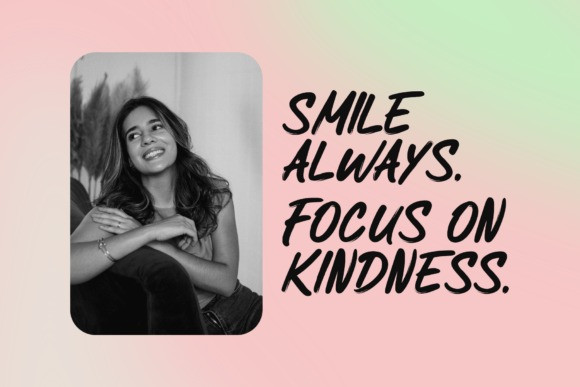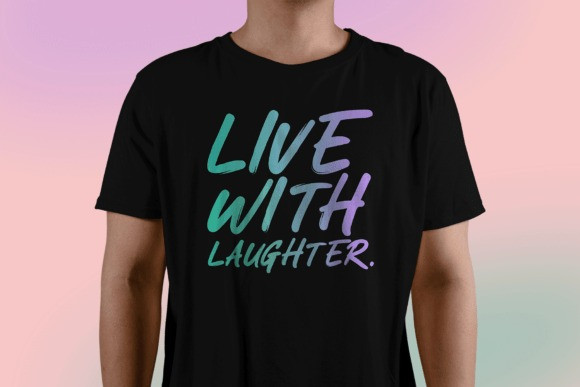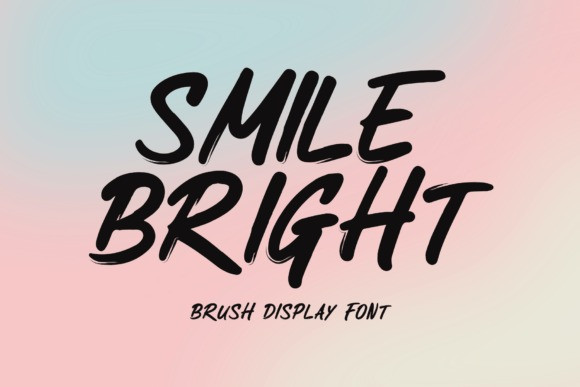
Smile Bright Font
Smile Bright Font is a bold brush display font that brings hand-painted energy to titles and logos. This modern brush typeface features thick, textured strokes, natural pressure contrast, and a confident slant that reads fast and loud. Open counters, a generous x-height, and tight spacing make the lettering pop on posters, social media, and thumbnails, while the dry-brush texture adds authentic, hand-lettered grit. Use the font big for headlines, quotes, streetwear branding, packaging, flyers, and YouTube intros, or pair it with a clean sans for sharp contrast. If you’re searching for a high-impact brush font with expressive motion and instant attitude, Smile Bright is the display typeface that turns simple words into striking marks.